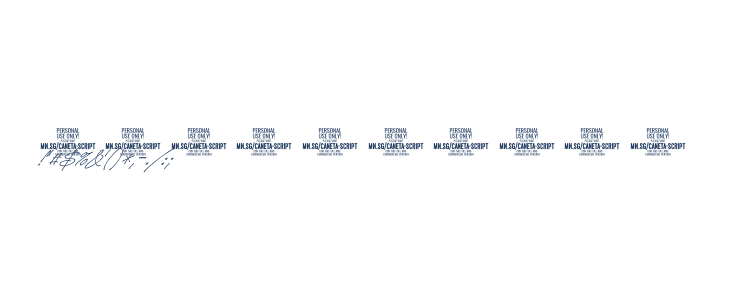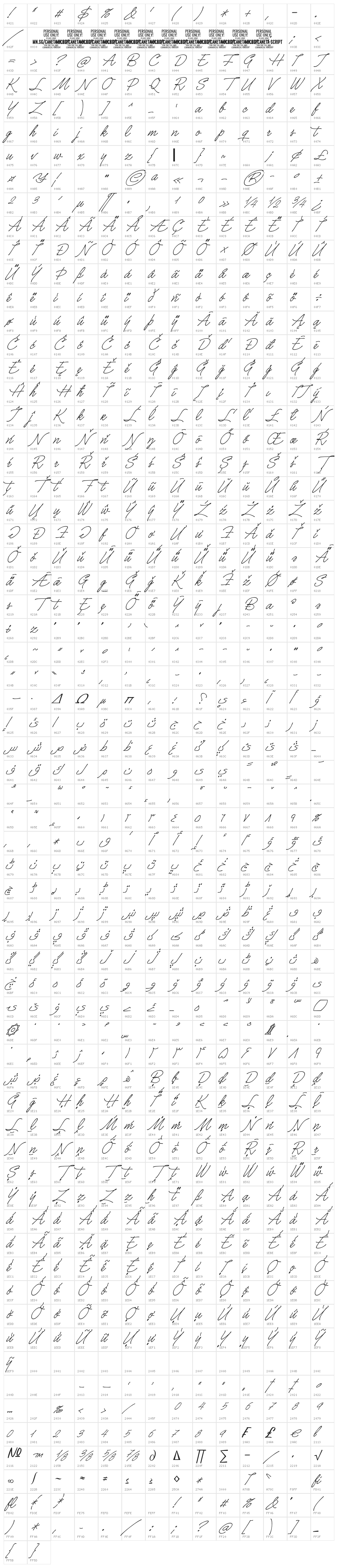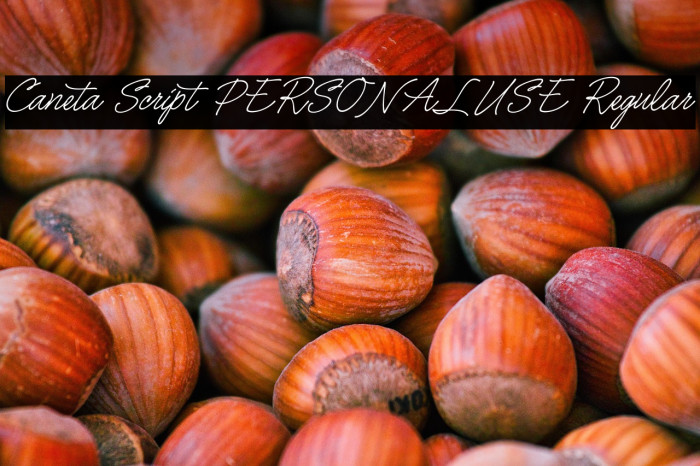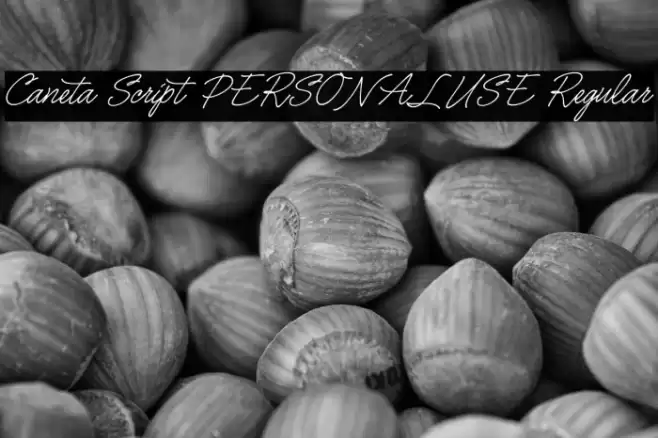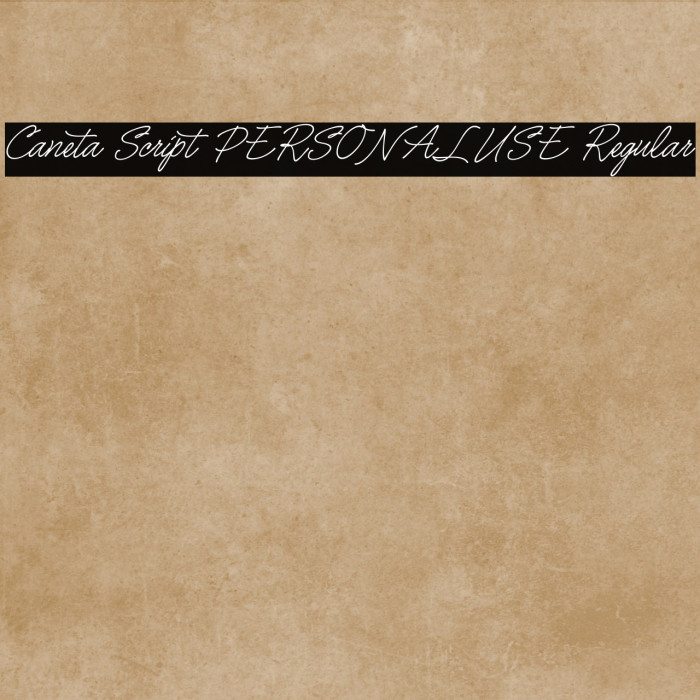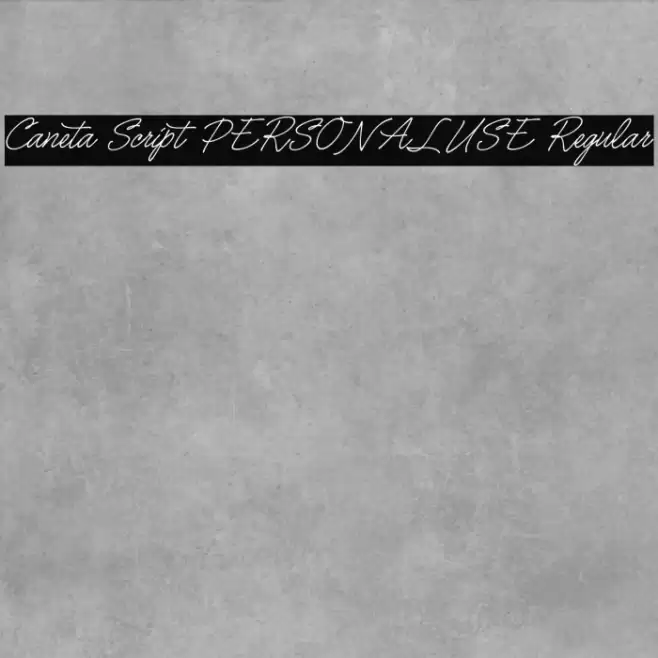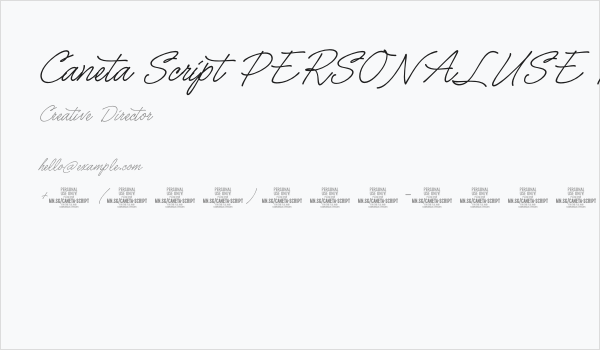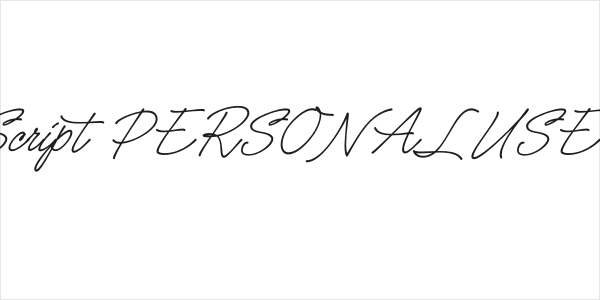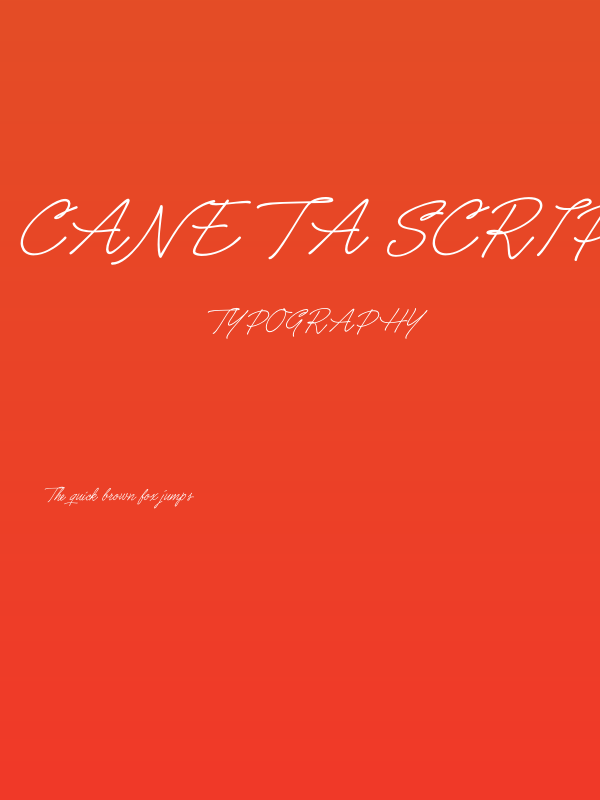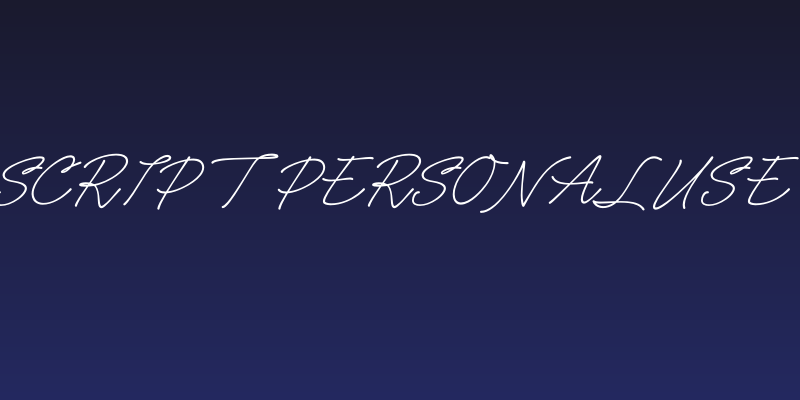
Caneta Script PERSONAL USE Regular Font
Caneta Script PERSONAL USE Regular Description
This elegant script font features fluid, cursive strokes that mimic the natural flow of handwriting. The uppercase letters are gracefully elongated, while the lowercase letters maintain a consistent, smooth connection that enhances readability. The font exudes a sense of sophistication and charm, making it ideal for projects that require a personal touch. The numerals and special characters are designed with the same attention to detail, ensuring a cohesive look across all text elements. Its overall appearance is both classic and modern, suitable for a variety of design applications.